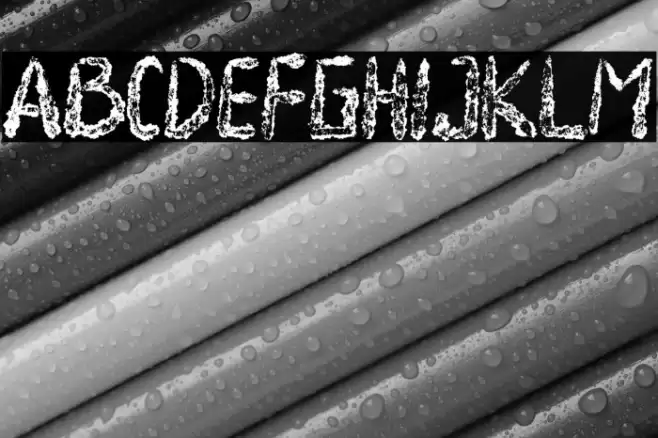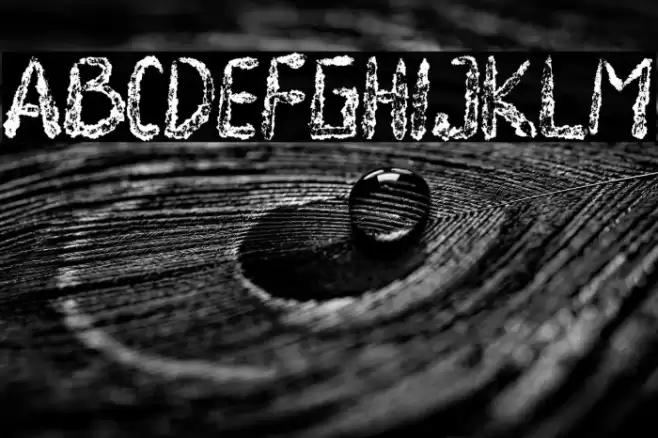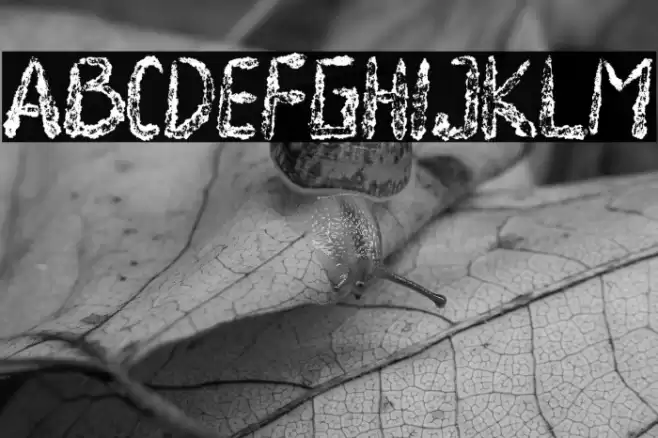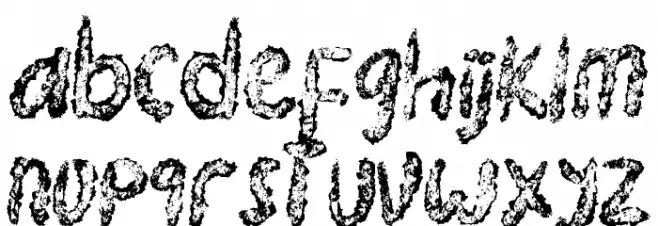
Death Demon Font
Death Demon Description
This font features a distressed and textured appearance, reminiscent of eroded or decayed surfaces. The letters have an irregular, rough edge that gives them a gritty and raw aesthetic. The uppercase and lowercase characters maintain a consistent style, with a slightly chaotic and unpredictable form. This font is designed to evoke a sense of unease or edginess, making it suitable for projects that require a dramatic or intense visual impact. The overall look is bold and striking, with a unique character that stands out in any design.
A distressed, textured font with a gritty, raw aesthetic from Uncategorized fonts.
- Font: Death Demon
- Proposed Projects: Ideal for horror-themed posters, album covers, or any design needing a dramatic, intense impact.
- Use Case: Headlines, Posters, Album Covers